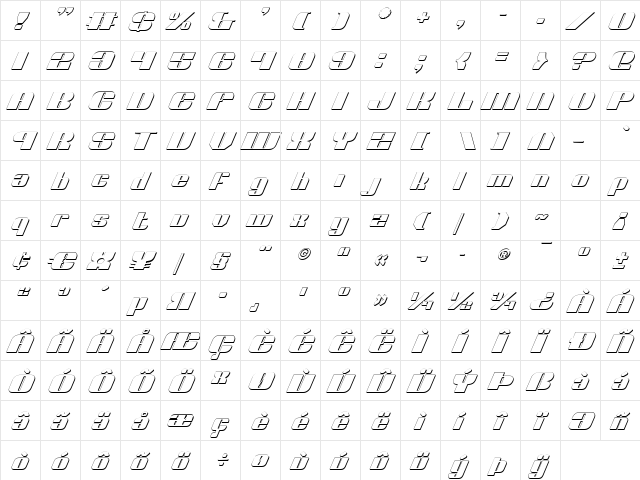
Nolo Contendre Shadow Italic Shadow Italic
Design Context for Nolo Contendre Shadow Italic Typeface
Nolo Contendre Shadow Italic is built around its visual character rather than neutral utility — its distinctive forms are designed to make an impression at display sizes. The dynamic lean of this cut emphasises speed and emphasis in any layout.
Font Pairing: Pair with a clean neutral sans-serif for body copy to let Nolo Contendre Shadow Italic's character lead without overwhelming the composition.
Pro Tip: Treat Nolo Contendre Shadow Italic as the centrepiece of your typographic hierarchy. One strong heading set in a decorative face can carry an entire layout.